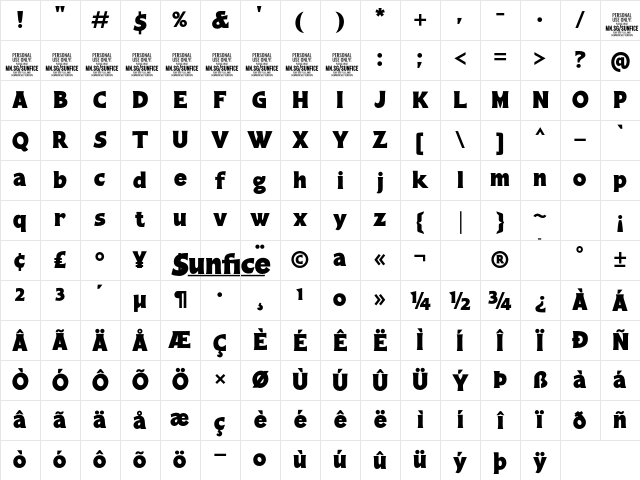
Complete Sunfice PERSONAL USE ONLY Regular glyph index. Displaying only characters natively supported by Sunfice PERSONAL USE ONLY Regular font.
Sunfice PERSONAL USE ONLY is a composed and adaptable typeface that performs quietly and consistently across a wide range of design contexts.